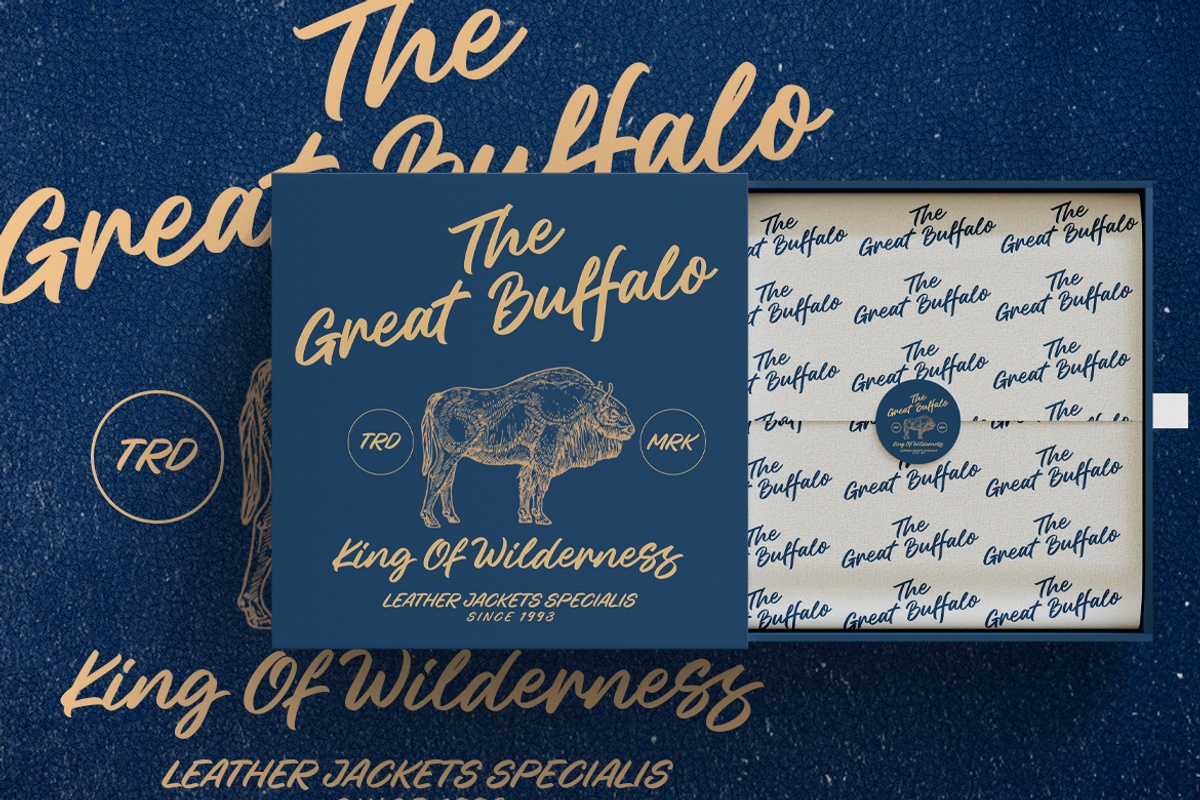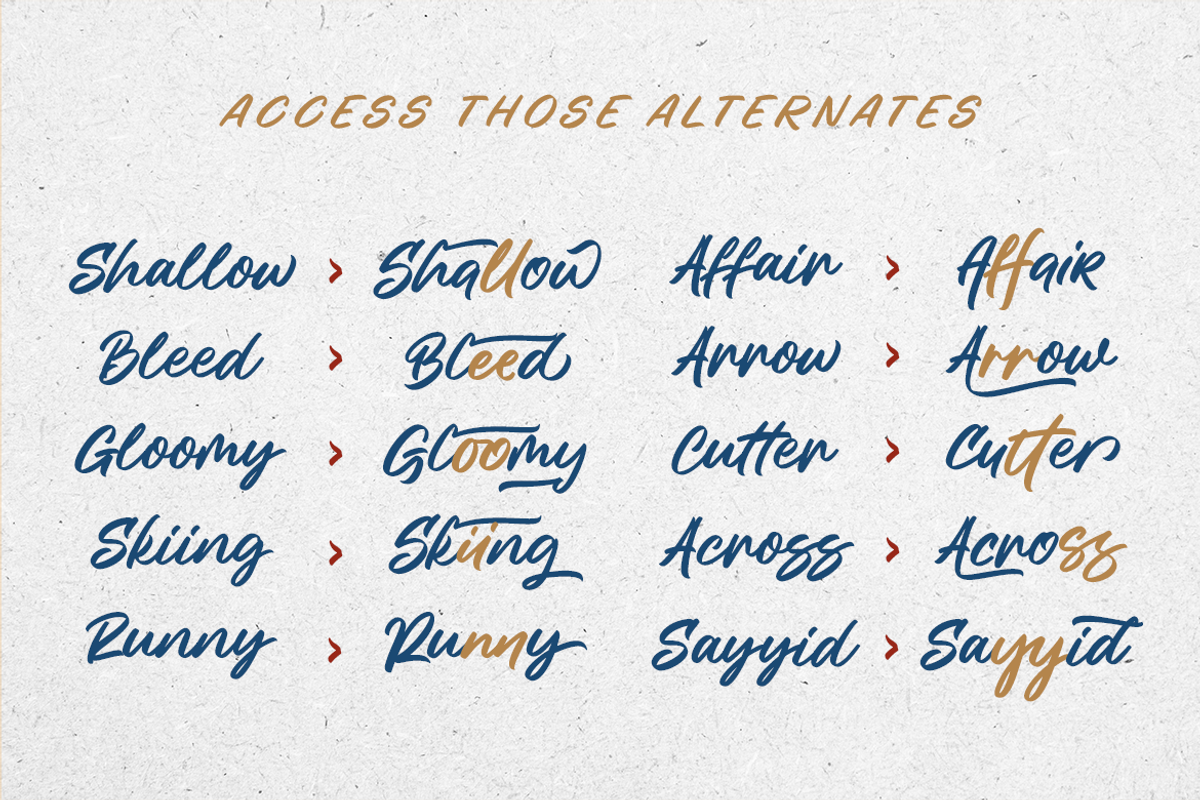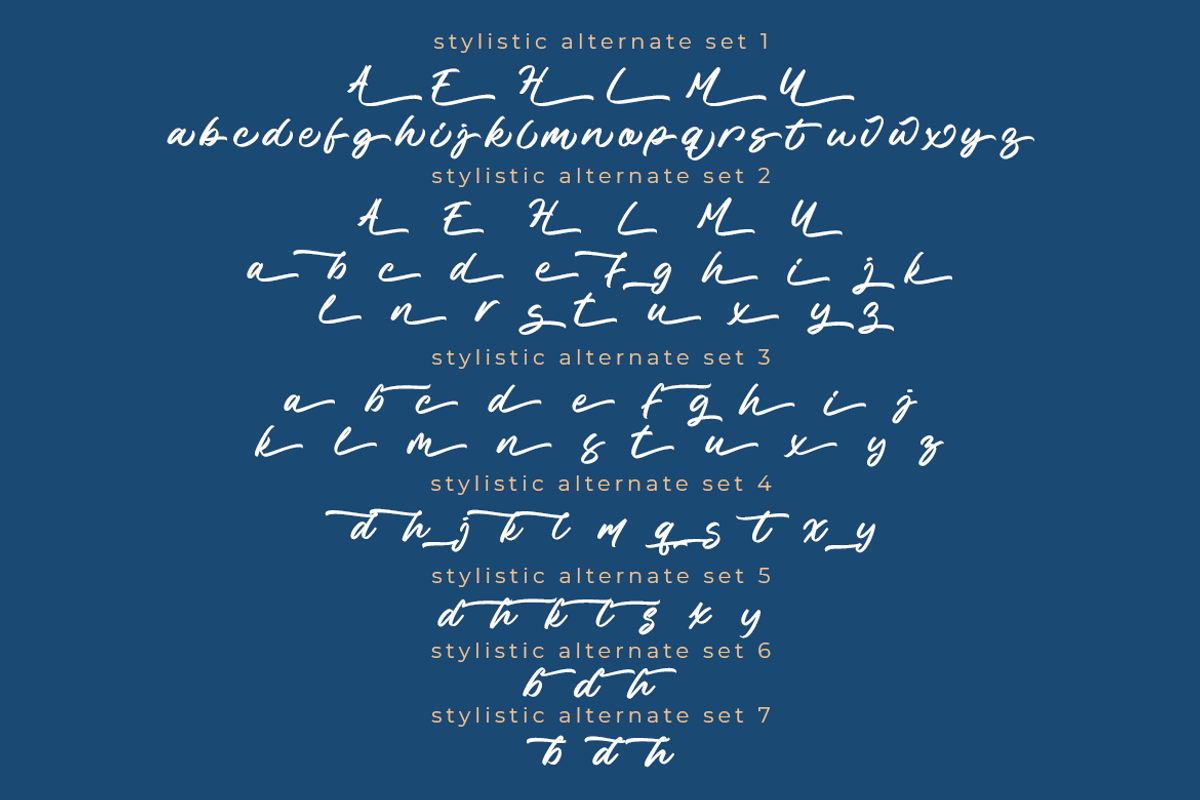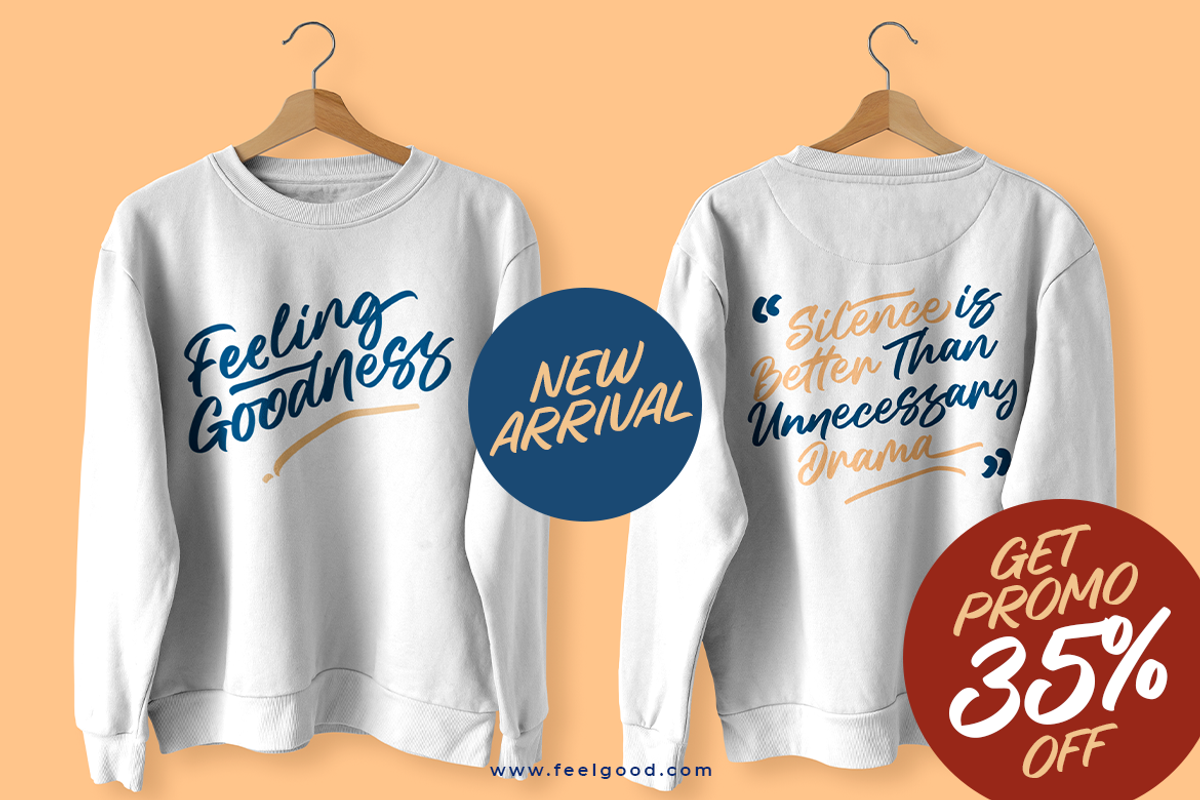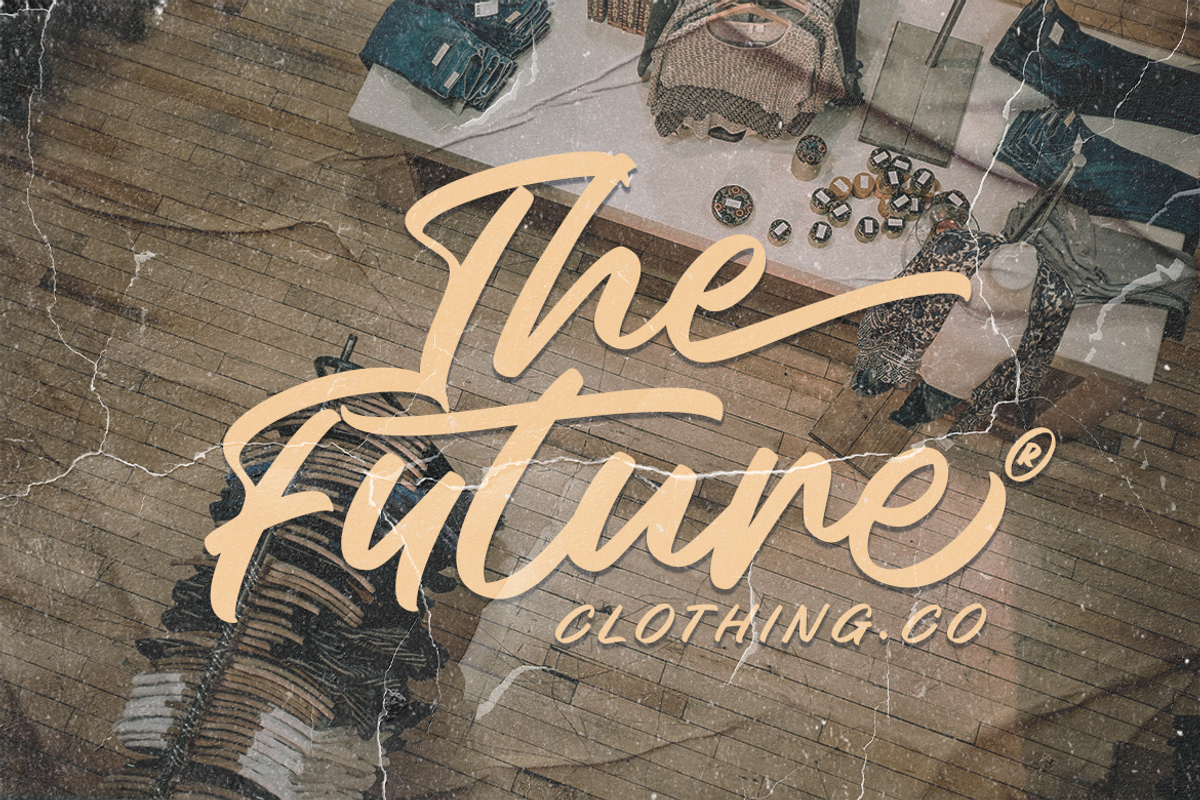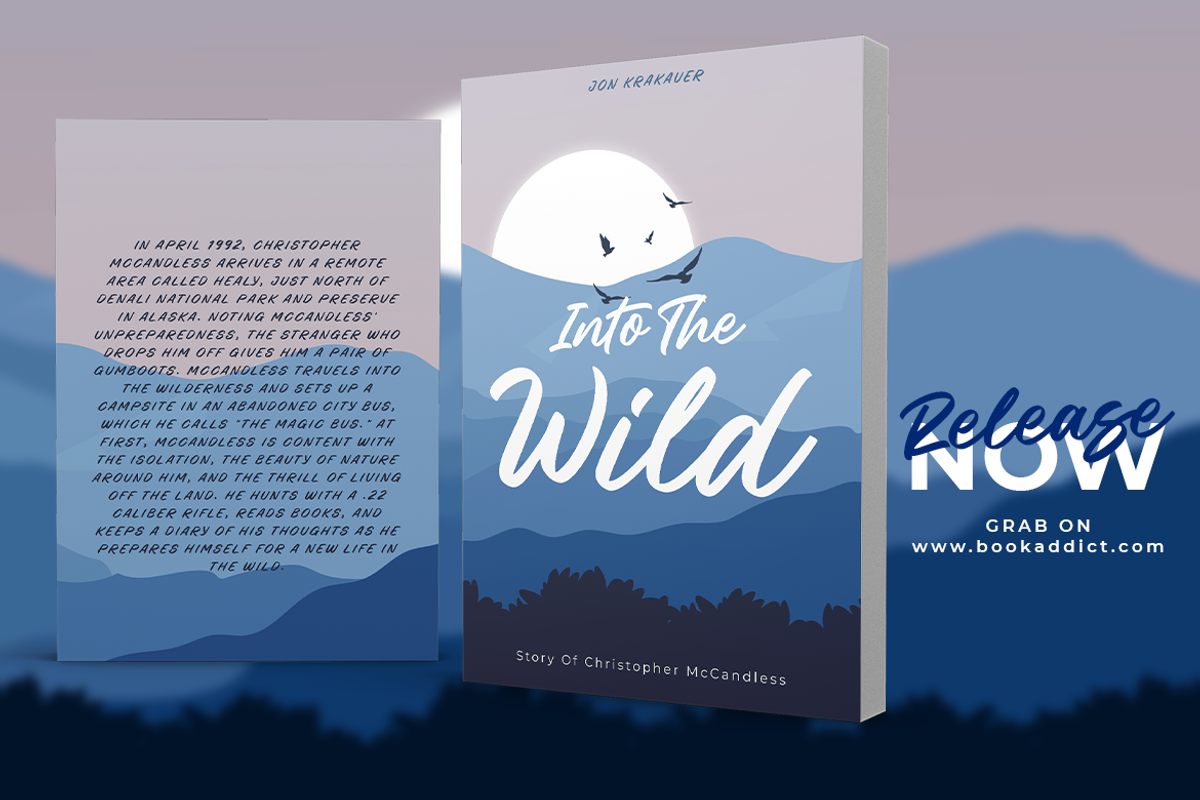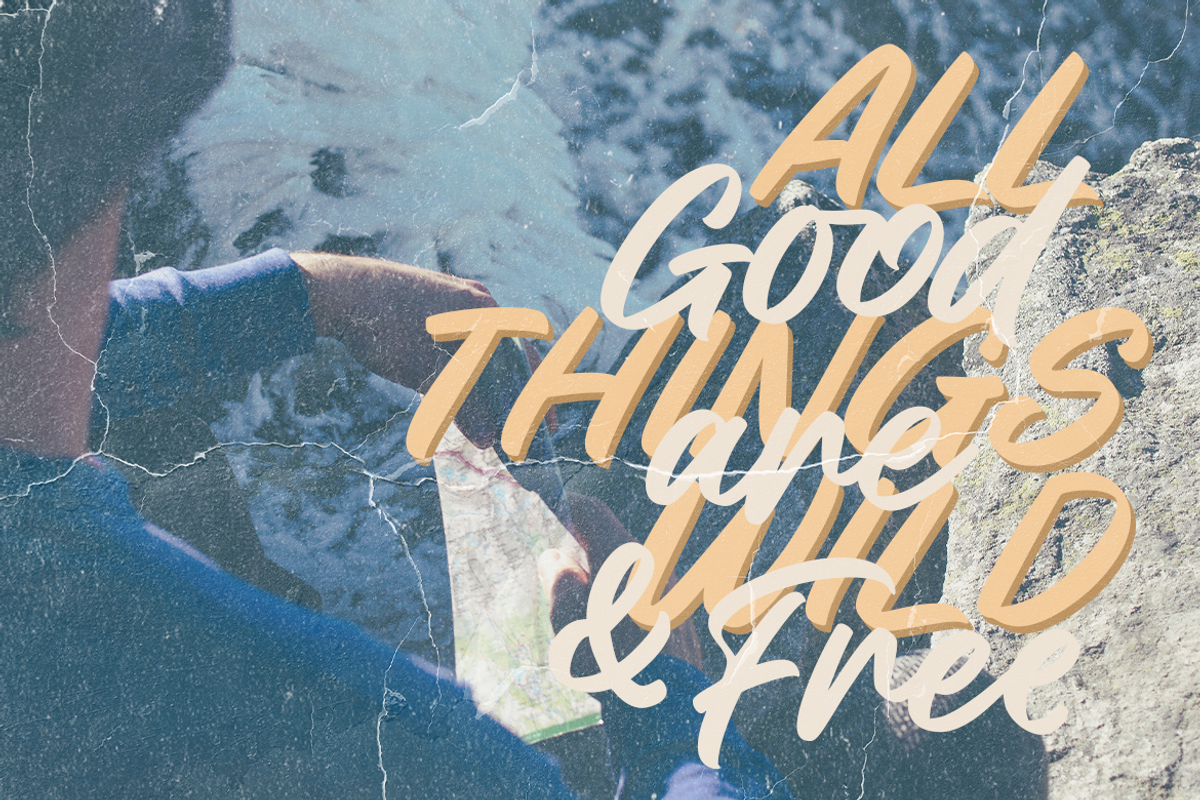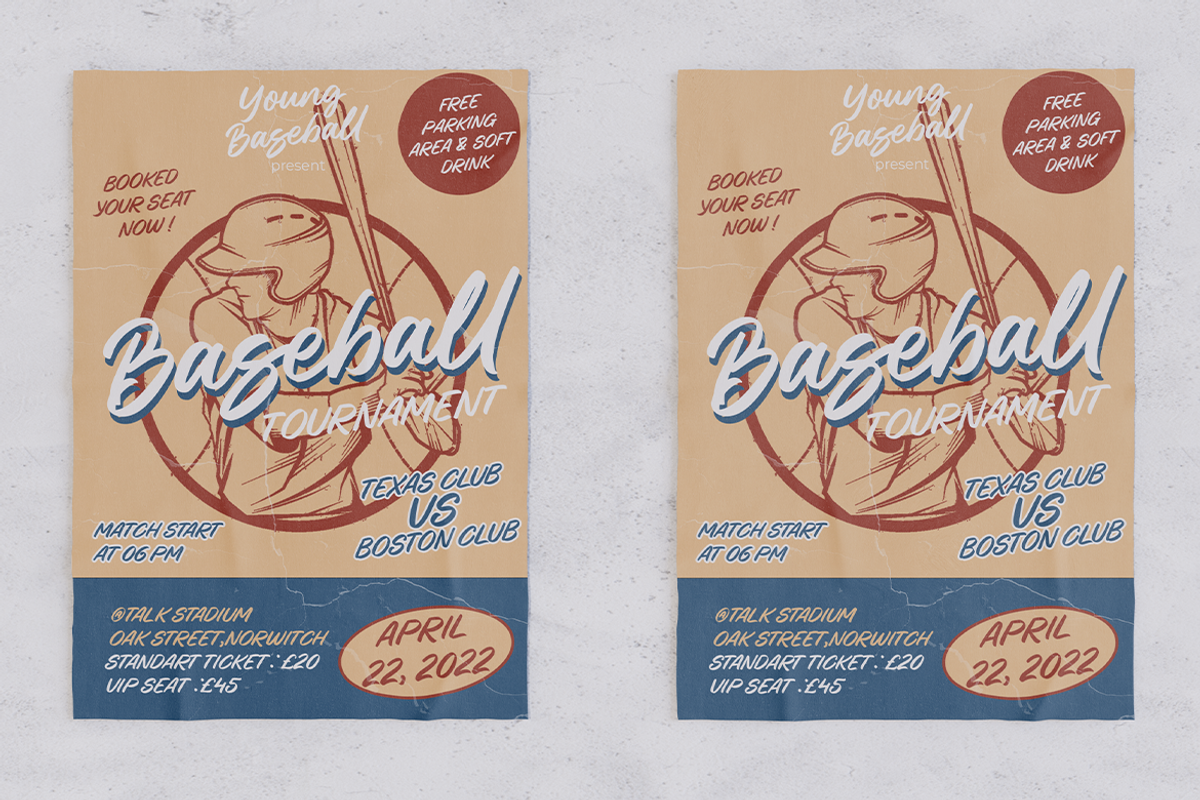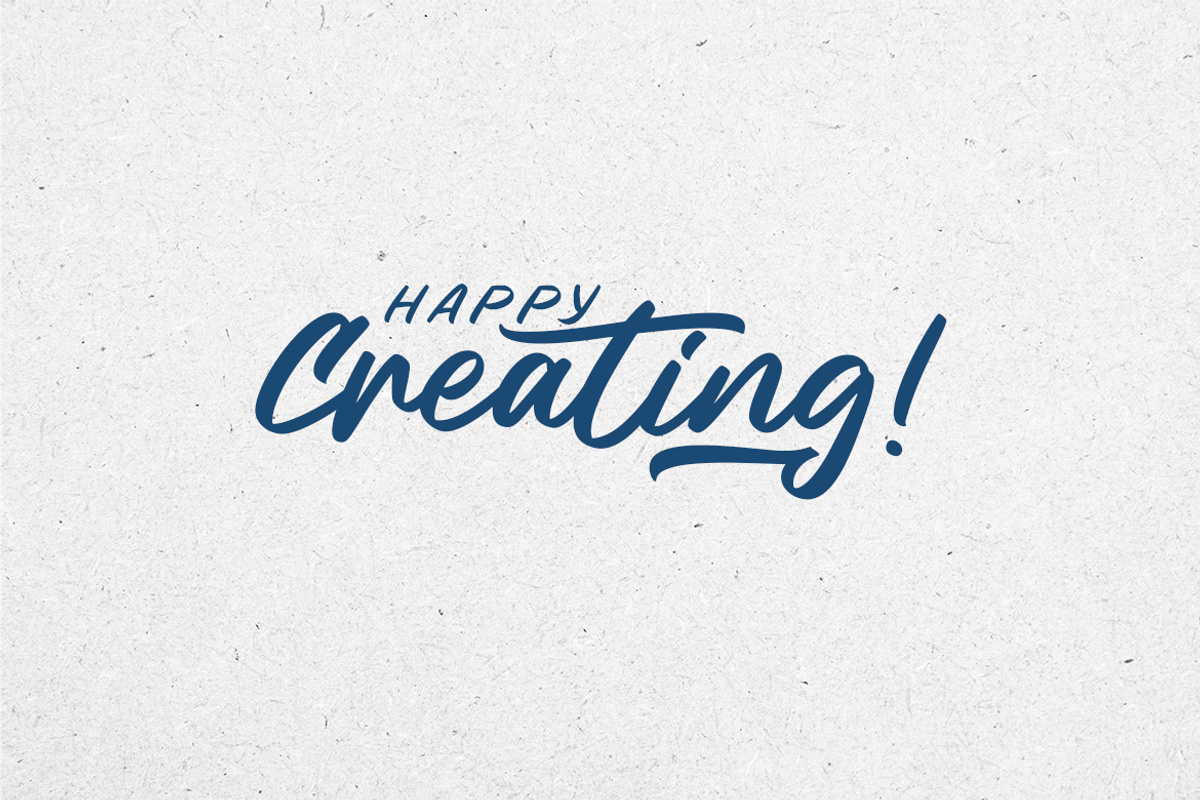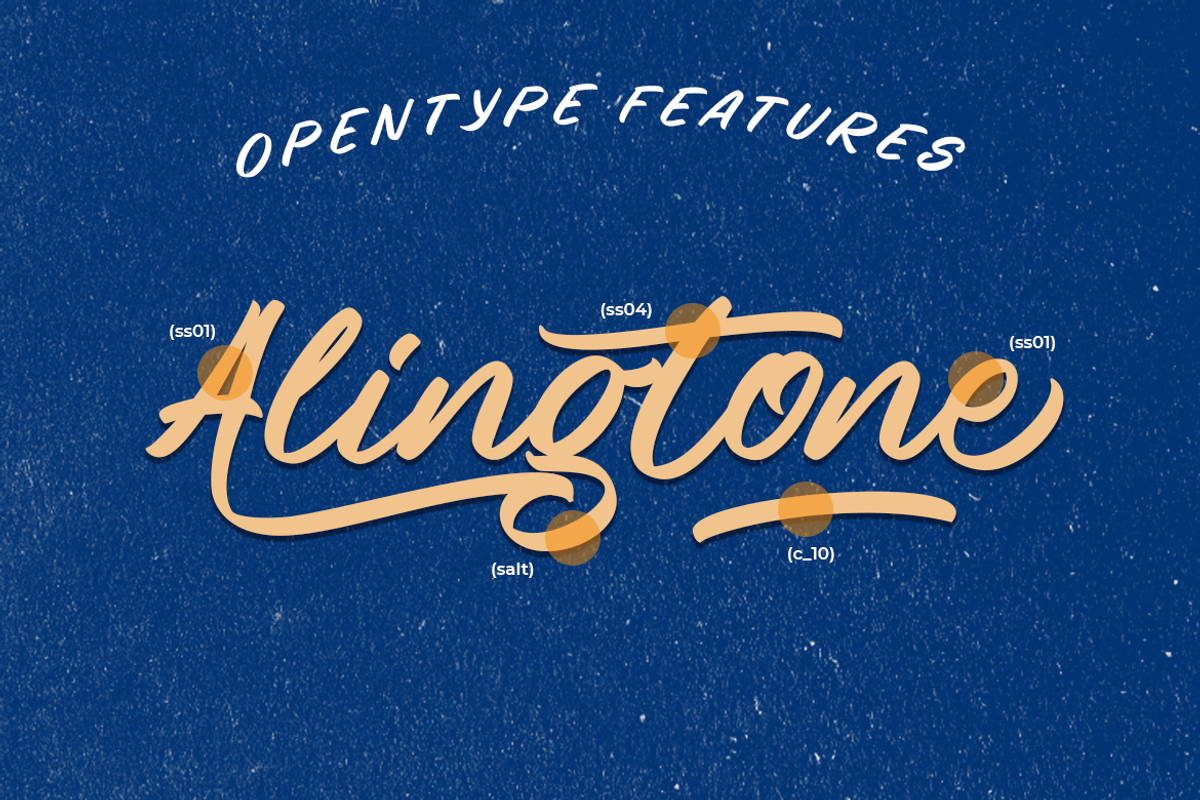
Alingtone • A Font Duo
Presenting Alingtone! A Bold Script Font Duo with alternates and 20 swashes. This font is made with the perfect combination of each character. You can type by Mix & Match with alternate version to get a unique combining. It looks original and can be used for all your project needs. Each glyph has its own uniqueness and when meeting with others will provide dynamic and pleasing proximity. This font can be used at any time and on any project. You can see in the presentation picture above, Alingtone looks casual and clean on design projects.
So, Alingtone can't wait to give its touch to all your design projects such as sign painting, quotes, vintage design, poster design, personal branding, promotional materials, website, logotype, product packaging, etc.
1. Alingtone Basic • The first version comes with uppercase, lowercase, ligatures, numeral, punctuation, symbols, and Standard Latin Multilingual Support (Afrikaans, Albanian, Catalan, Danish, Dutch, English, French, German, Icelandic, Indonesian, Italian, Malay, Norwegian, Portuguese, Spanisch, Swedish, Zulu, and More). You can also access alternate and swash by Opentype Features or typing c_1 until c_20 to feature swash.
2. Alingtone Alternate • The second version comes with uppercase, lowercase, ligatures, numeral, punctuation, symbols, and Standard Latin Multilingual Support (Afrikaans, Albanian, Catalan, Danish, Dutch, English, French, German, Icelandic, Indonesian, Italian, Malay, Norwegian, Portuguese, Spanisch, Swedish, Zulu, and More). You can also access swash by Opentype Features or typing c_1 until c_20 to feature swash.
2. Alingtone San • The San version comes with uppercase, lowercase, ligatures, numeral, punctuation, symbols, and Standard Latin Multilingual Support (Afrikaans, Albanian, Catalan, Danish, Dutch, English, French, German, Icelandic, Indonesian, Italian, Malay, Norwegian, Portuguese, Spanisch, Swedish, Zulu, and More). You can also access swash by Opentype Features or typing c_1 until c_20 to feature swash.